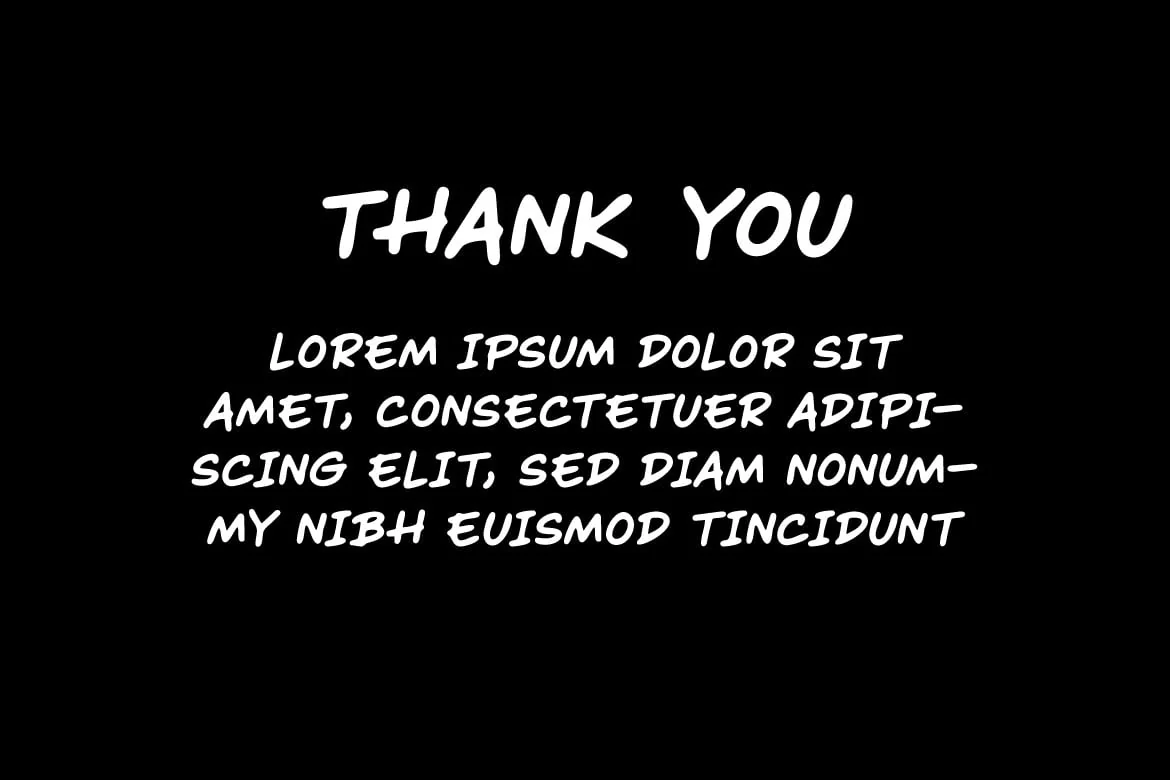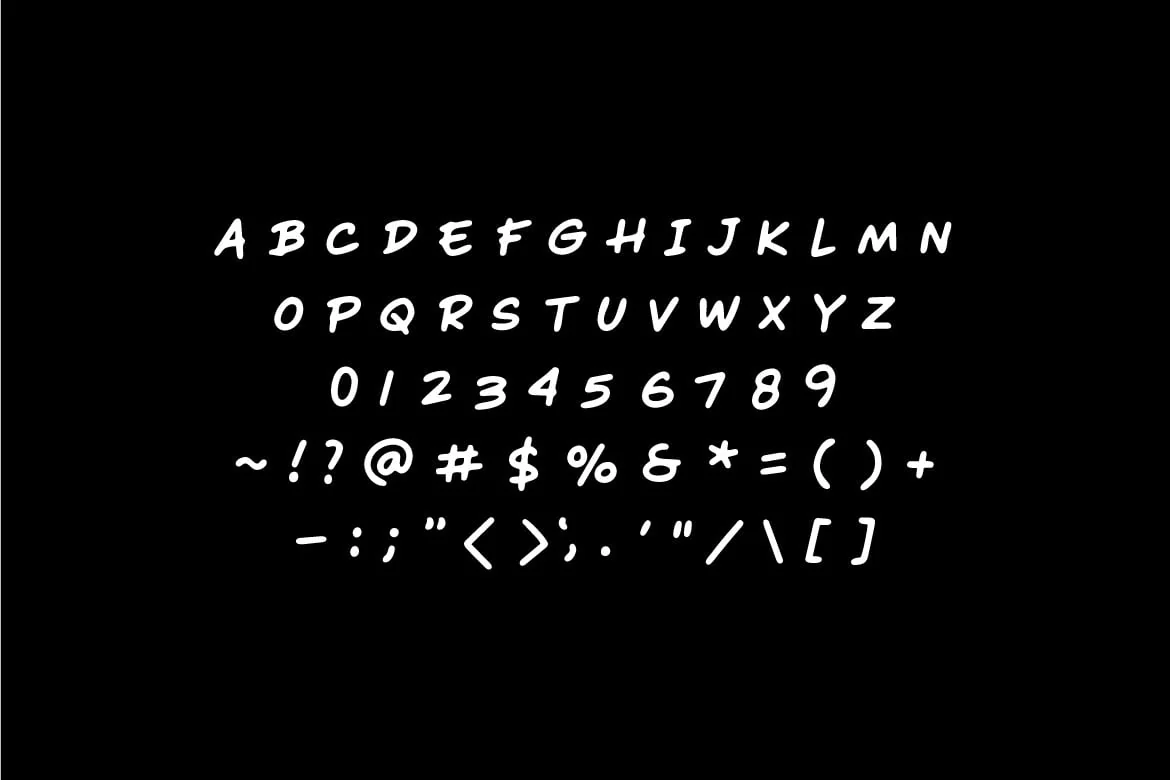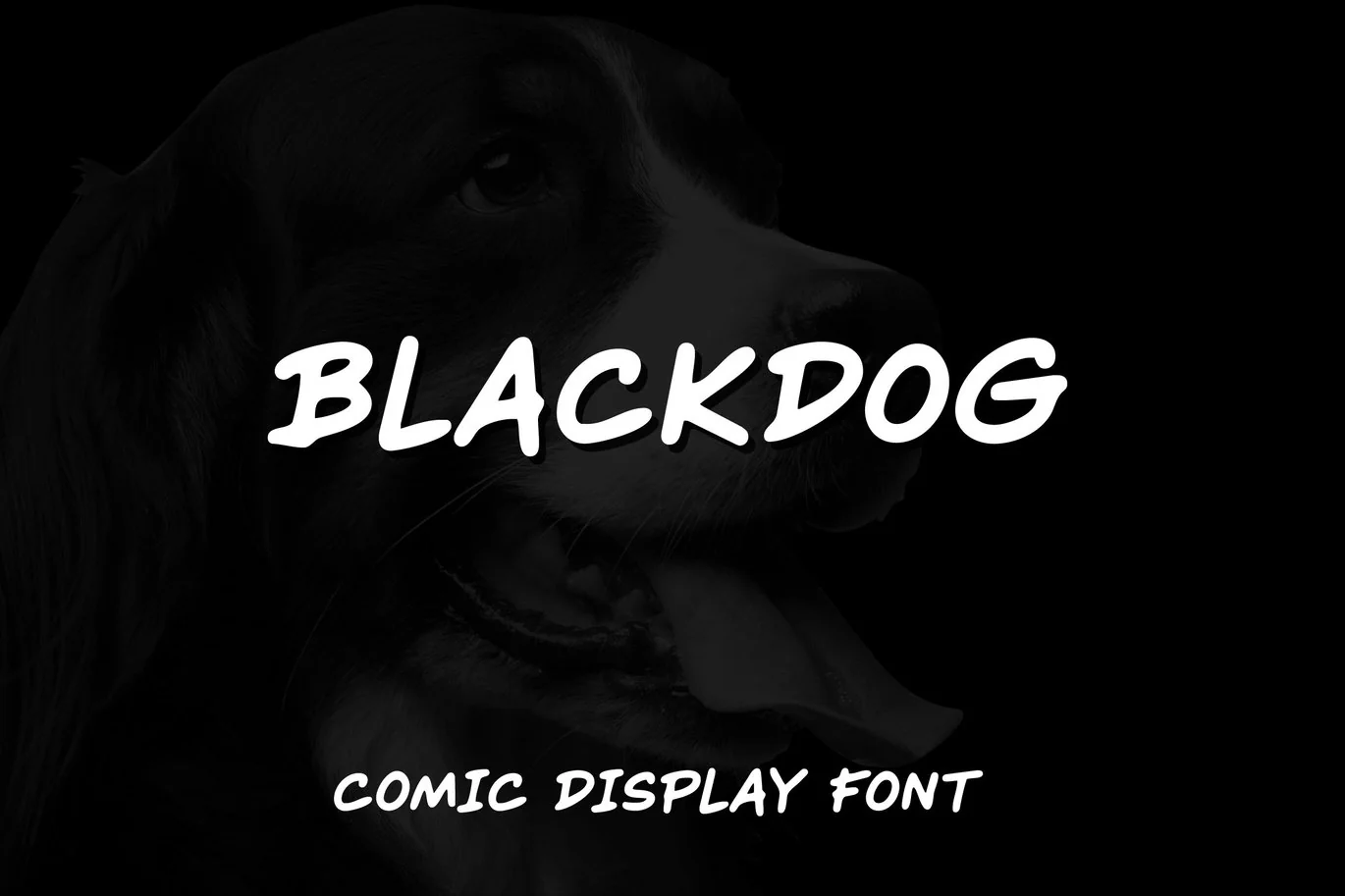
Black Dog – Comic Display Font
If you are looking for a comic display font with hand made looking, meet BLACK DOG
Blackdog is perfect for any works, such as your comic, poster, card, book title, headline of news, banner, flyer, stationery and many more. It also can be used in Any scale work.